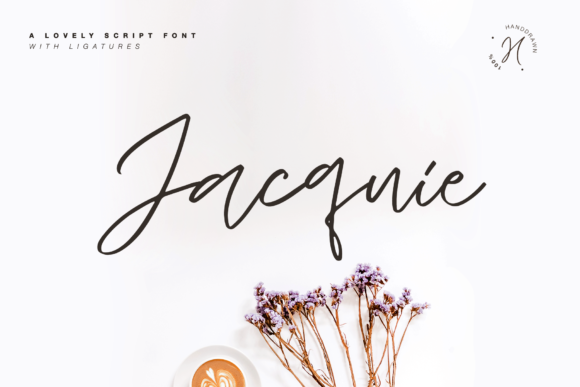
Get ready to embrace the captivating beauty of Jacque Font, meticulously crafted to add an enchanting touch to your creative projects. This extraordinary script font exudes a bold and authentic charm, inviting you to unleash your imagination and elevate your designs to new heights.
Jacque Font is more than just a font; it's an artistic masterpiece that will transform your words into captivating works of art. Whether you're crafting stunning invitations, designing eye-catching social media posts, or creating heartfelt personal letters, Jacque Font will infuse your creations with a touch of elegance and originality.
Dive into the world of Jacque Font and discover the intricate details that bring it to life. Each letter dances across the page with graceful curves and playful flourishes, creating a harmonious balance that will captivate your audience. Its bold personality shines through every stroke, adding a touch of drama and sophistication to your designs.
Indulge in the versatility of Jacque Font and explore its endless possibilities. Perfect for Cricut Marker projects, this font will add a touch of magic to your home décor, personalized gifts, and handmade crafts. Its bold presence will make your creations stand out from the crowd, leaving a lasting impression on everyone who encounters them.
Unleash your creativity and embrace the allure of Jacque Font. Let its captivating charm inspire you to create designs that connect with your audience on a deeper level. With every stroke of this extraordinary font, you'll add a touch of elegance, authenticity, and undeniable charm to your creative endeavors.